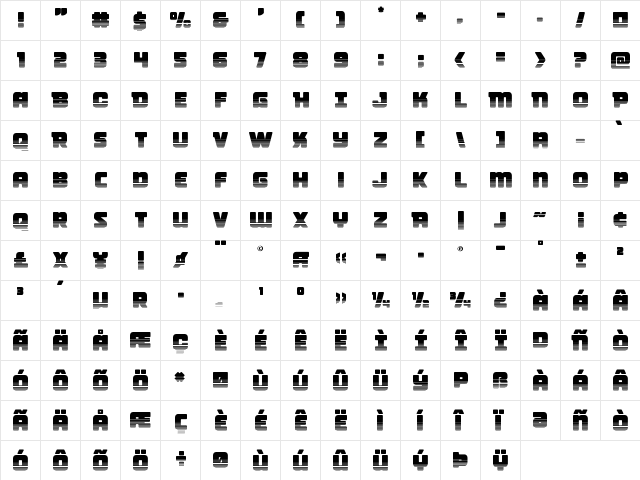
Victory Comics Two-Tone Regular
Design Context for Victory Comics Two-Tone Typeface
Victory Comics Two-Tone trades formality for fun, with bouncy, characterful letterforms that bring warmth and energy to any project.
Font Pairing: Pairs well with a rounded or humanist sans for body copy, maintaining the friendly tone without relying on Victory Comics Two-Tone to carry extended reading.
Pro Tip: Avoid using Victory Comics Two-Tone for long passages of text — it works best for headlines, labels, and short calls to action.